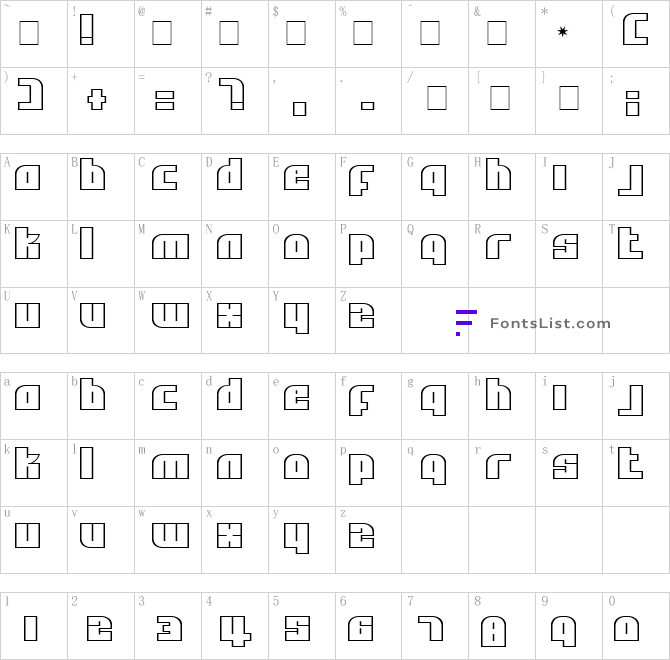
- Font Name:Alpha Flight
Alpha-Flight.ttf is a very beautiful artistic font, Alpha-Flight.ttf is widely used in the design and printing of various books and pictures,Alpha-Flight.ttf has a strong visual impact,Alpha-Flight.ttf is a commonly used font in newspapers, magazines and books, and is used in posters, e-commerce Poster design, store design, logo design, font design and other fields.Alpha-Flight.